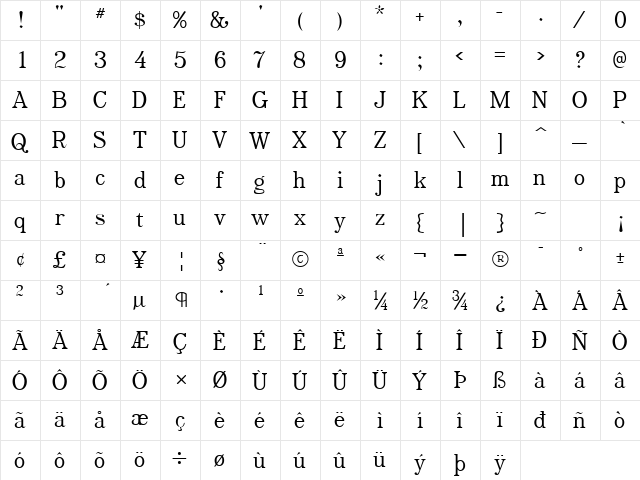
Rataczak Roman
Design Context for Rataczak Typeface
Rataczak takes a measured approach to typography — its balanced proportions and neutral character make it a reliable workhorse for both digital and print work.